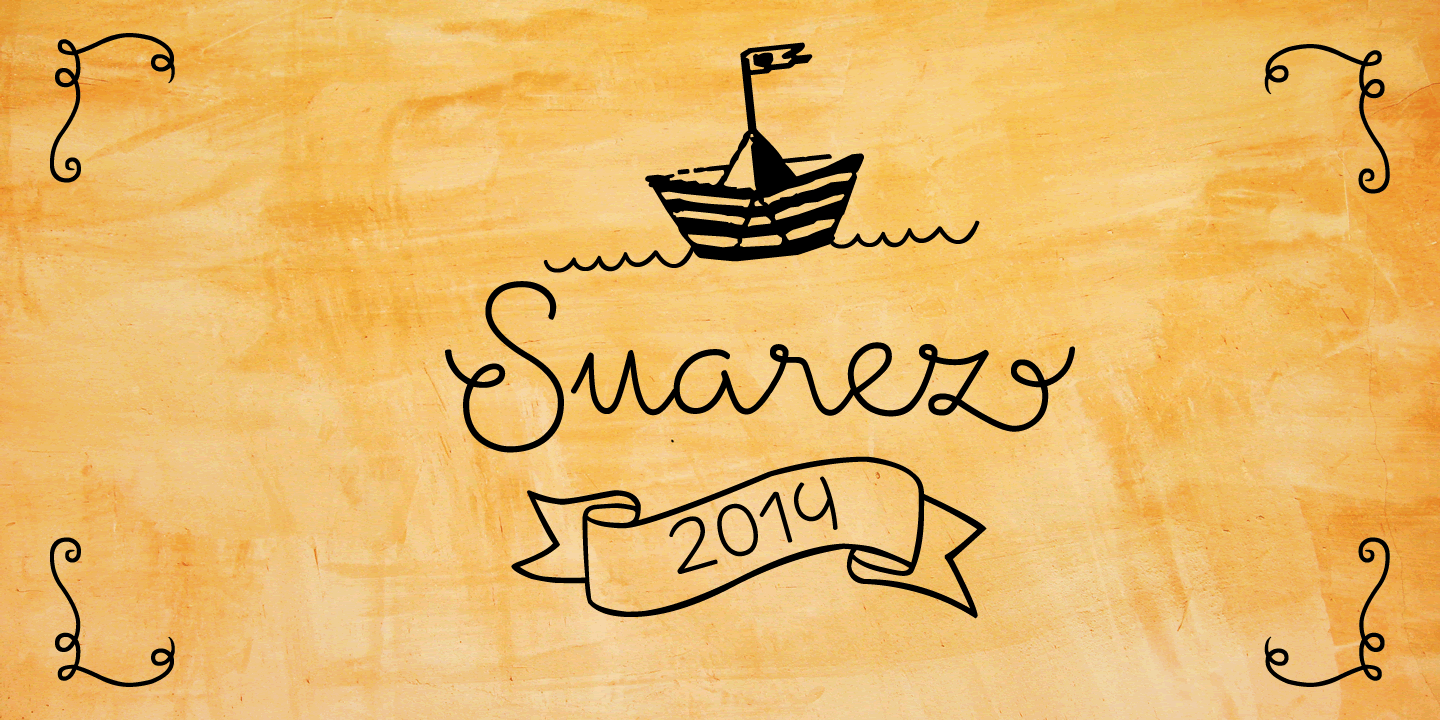
Suarez Alt
Suarez is a dingbat, hand drawn and script font family. This typeface has three styles and was published by GRIN3 (Nowak).
Suarez is a handwritten, fully connected script with ligatures to help with flow and readability.
Suarez is a handwritten, fully connected script with ligatures to help with flow and readability. It can be used for invitations, greeting cards, posters, advertising, weddings, books, menus etc.
Language support includes Western, Central and Eastern European character sets, as well as Baltic and Turkish languages.